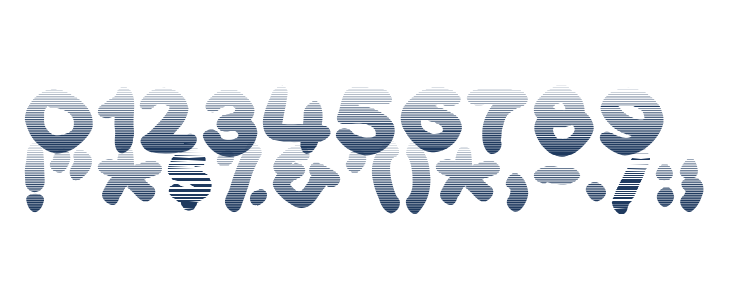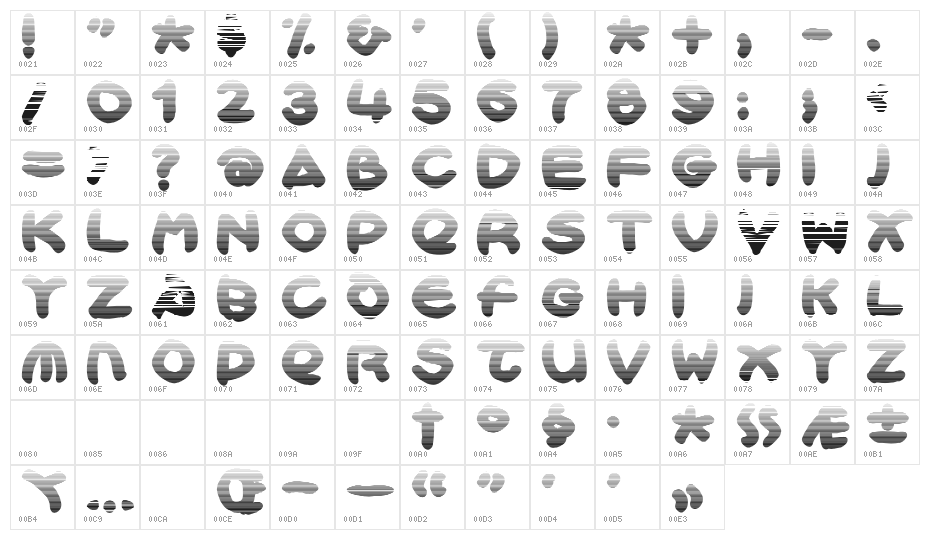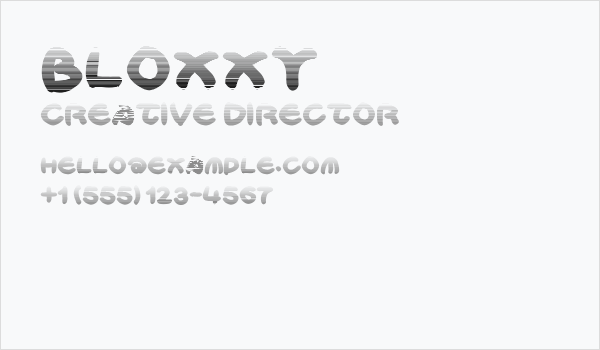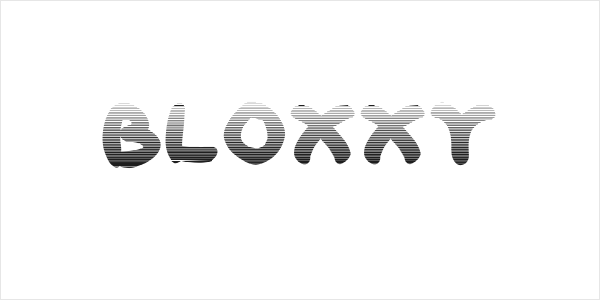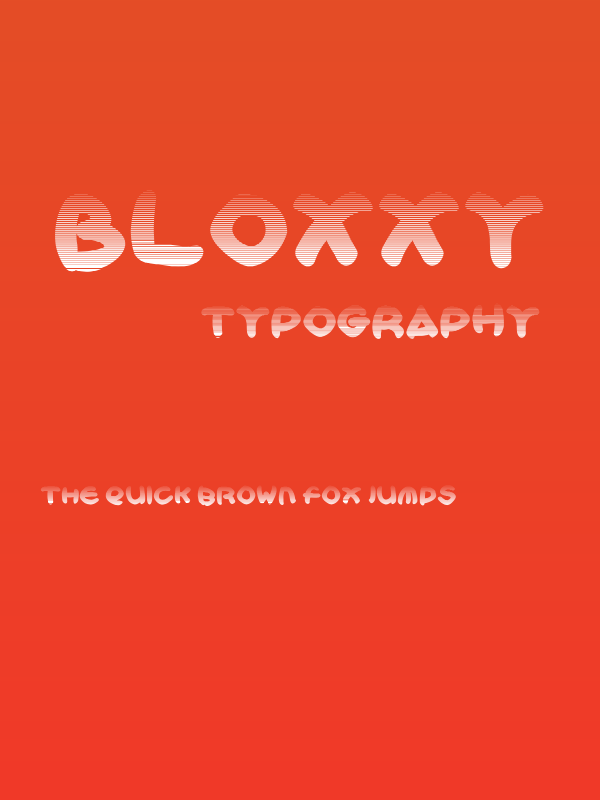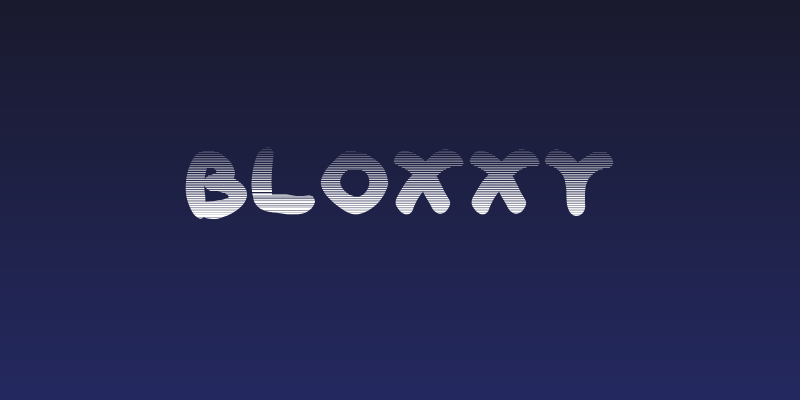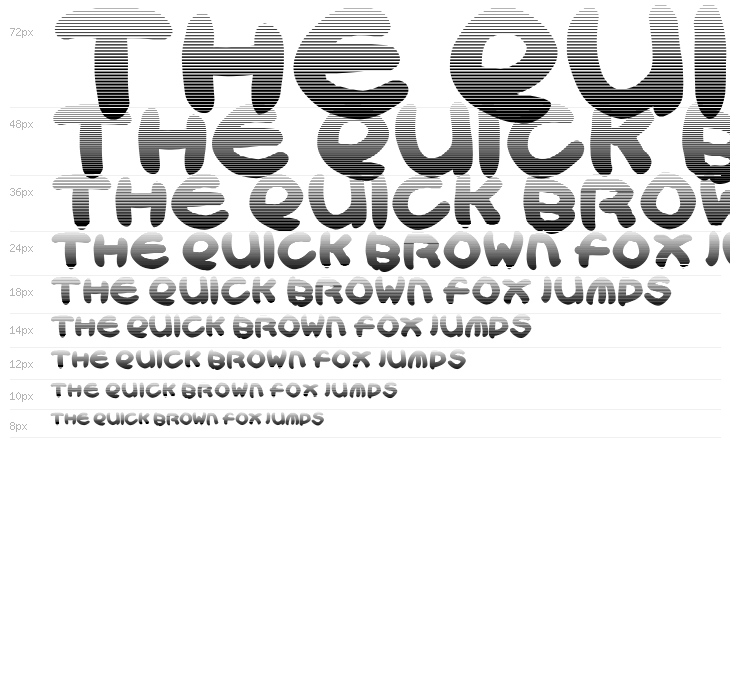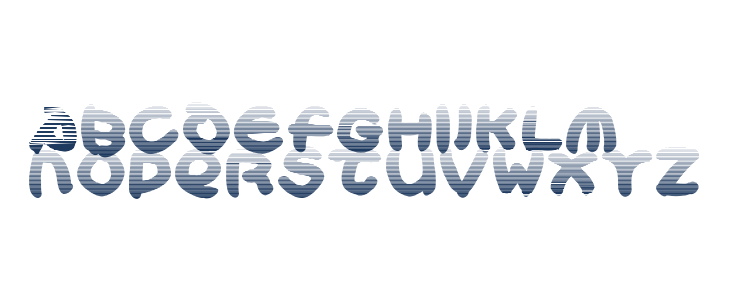
Bloxxy Font
Bloxxy Description
This font features a bold, modern design with a unique striped pattern running horizontally across each character. The letters are rounded and have a playful, futuristic appearance, making them stand out. The uppercase and lowercase letters maintain a consistent style, with the stripes creating a sense of movement and depth. Numbers and special characters are designed with the same attention to detail, ensuring a cohesive look across all elements. The font's distinct style makes it ideal for creative projects that require a bold and eye-catching typeface.
| Proposed Projects | Ideal for branding, posters, digital art, and any project needing a modern, eye-catching typeface. |